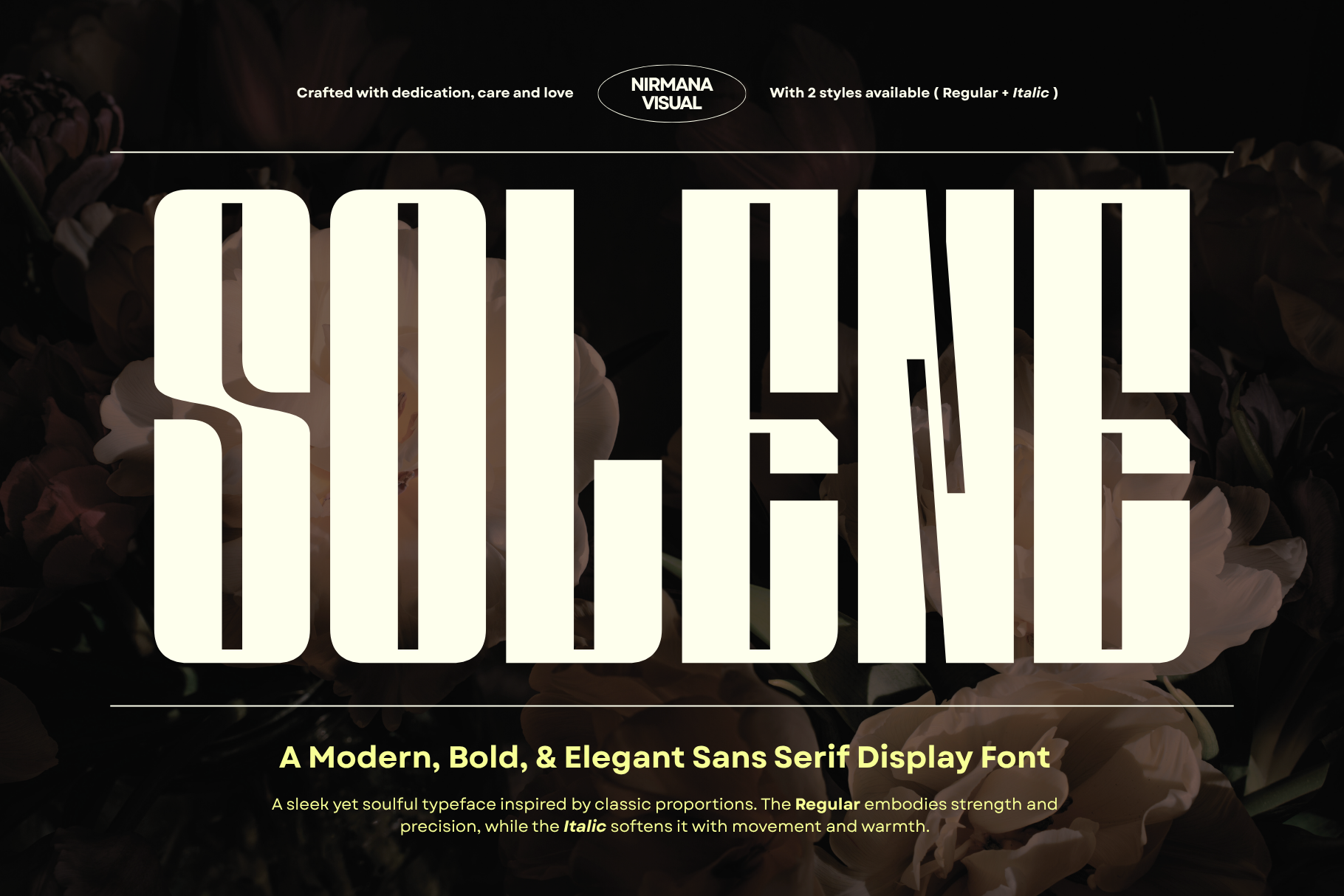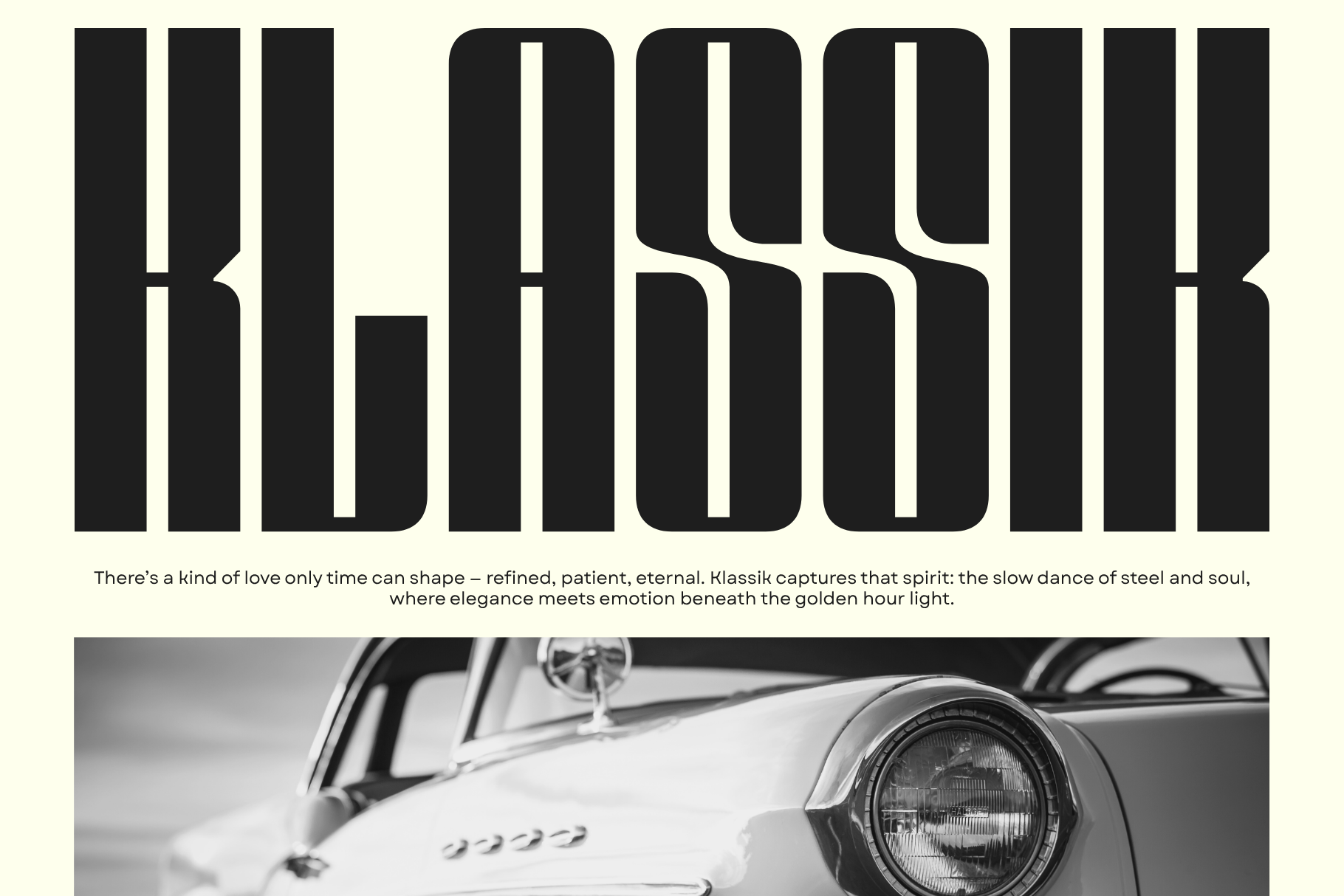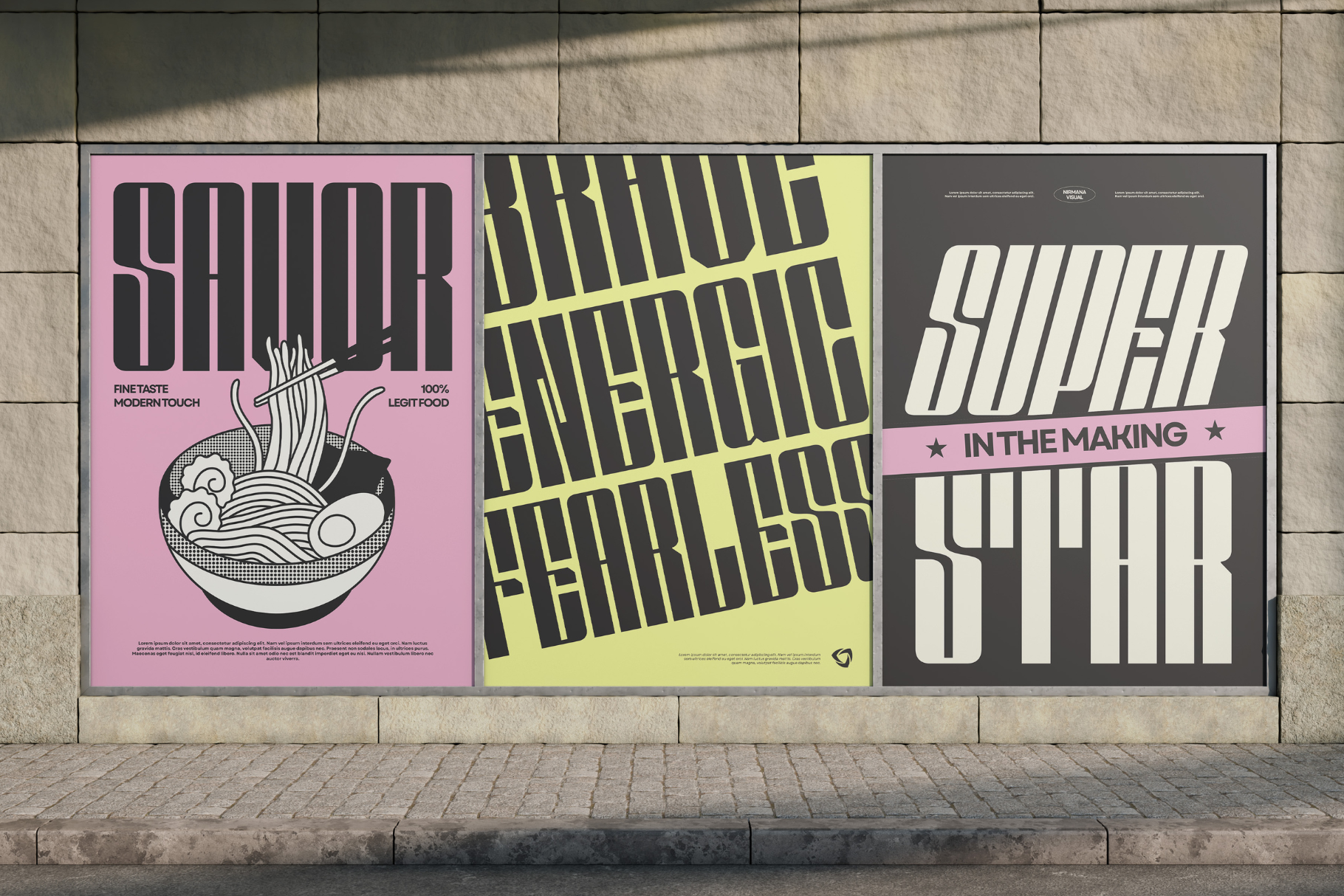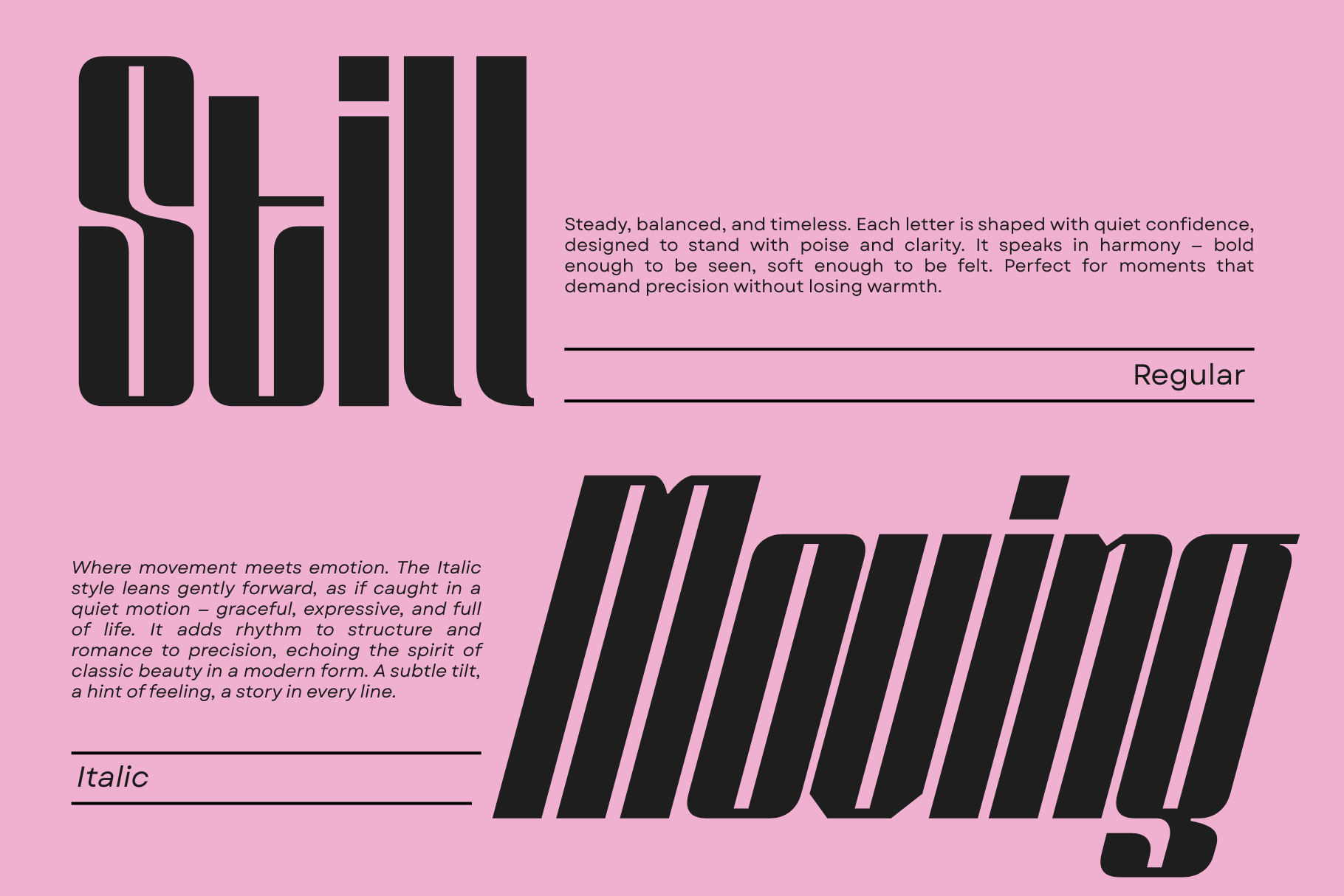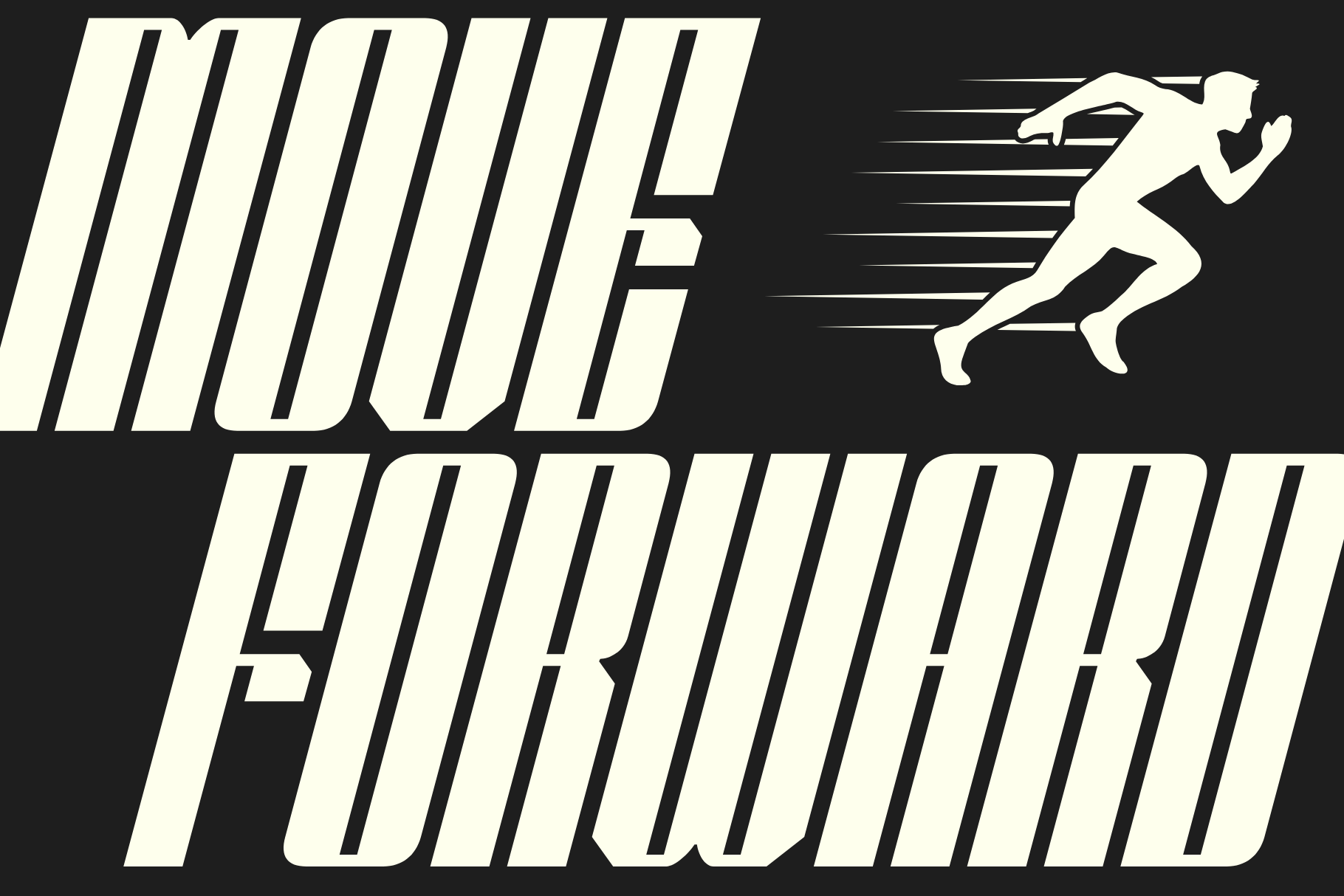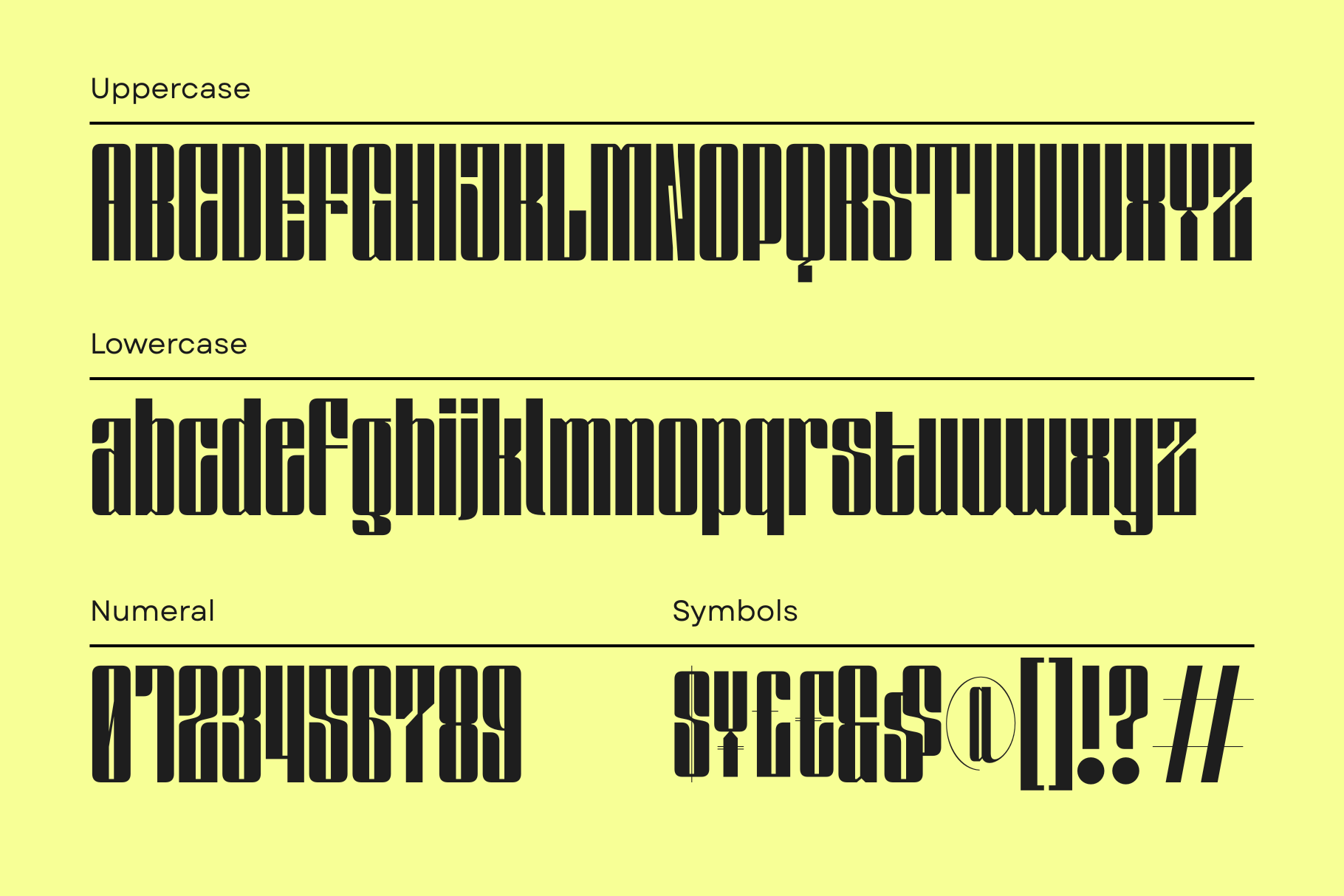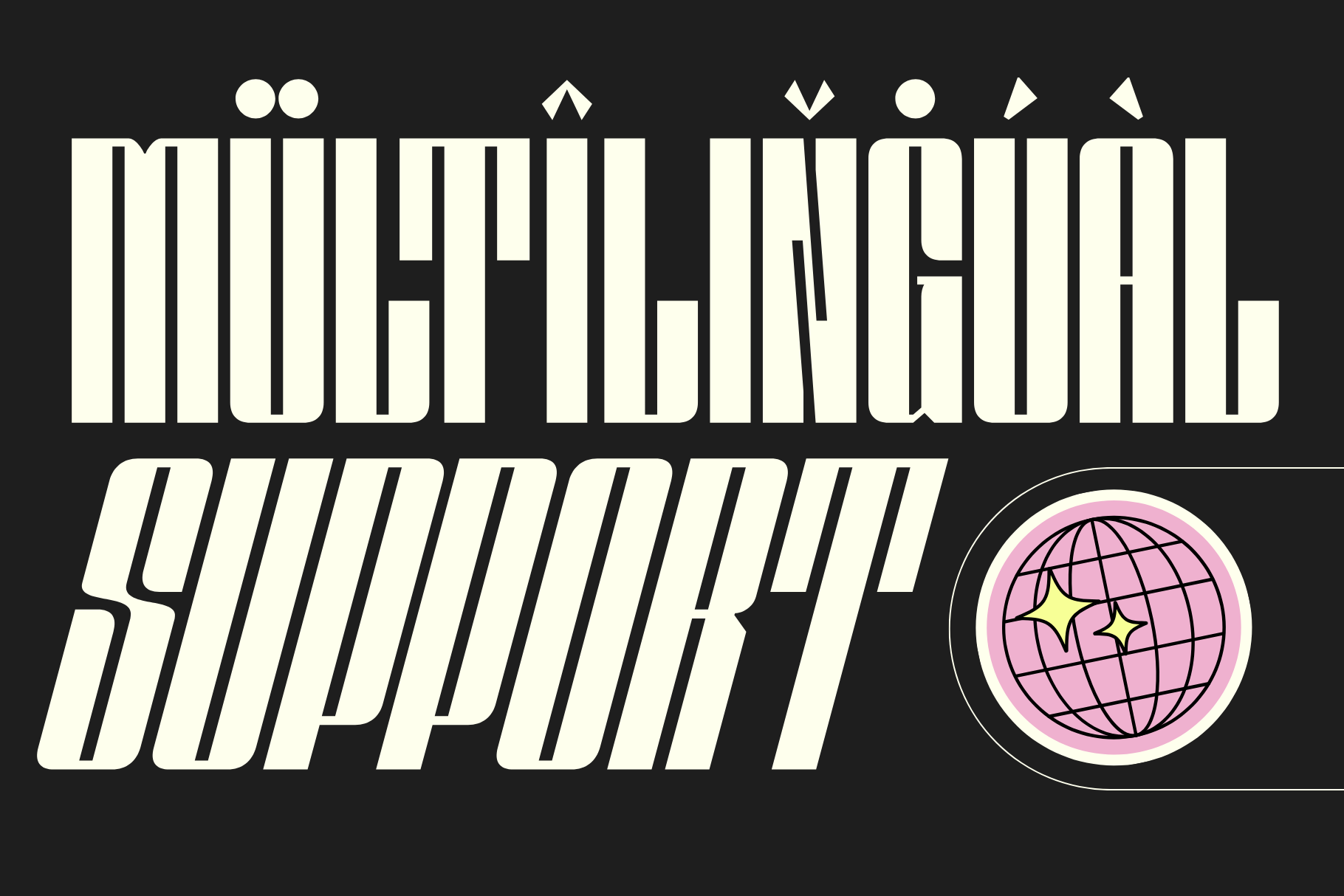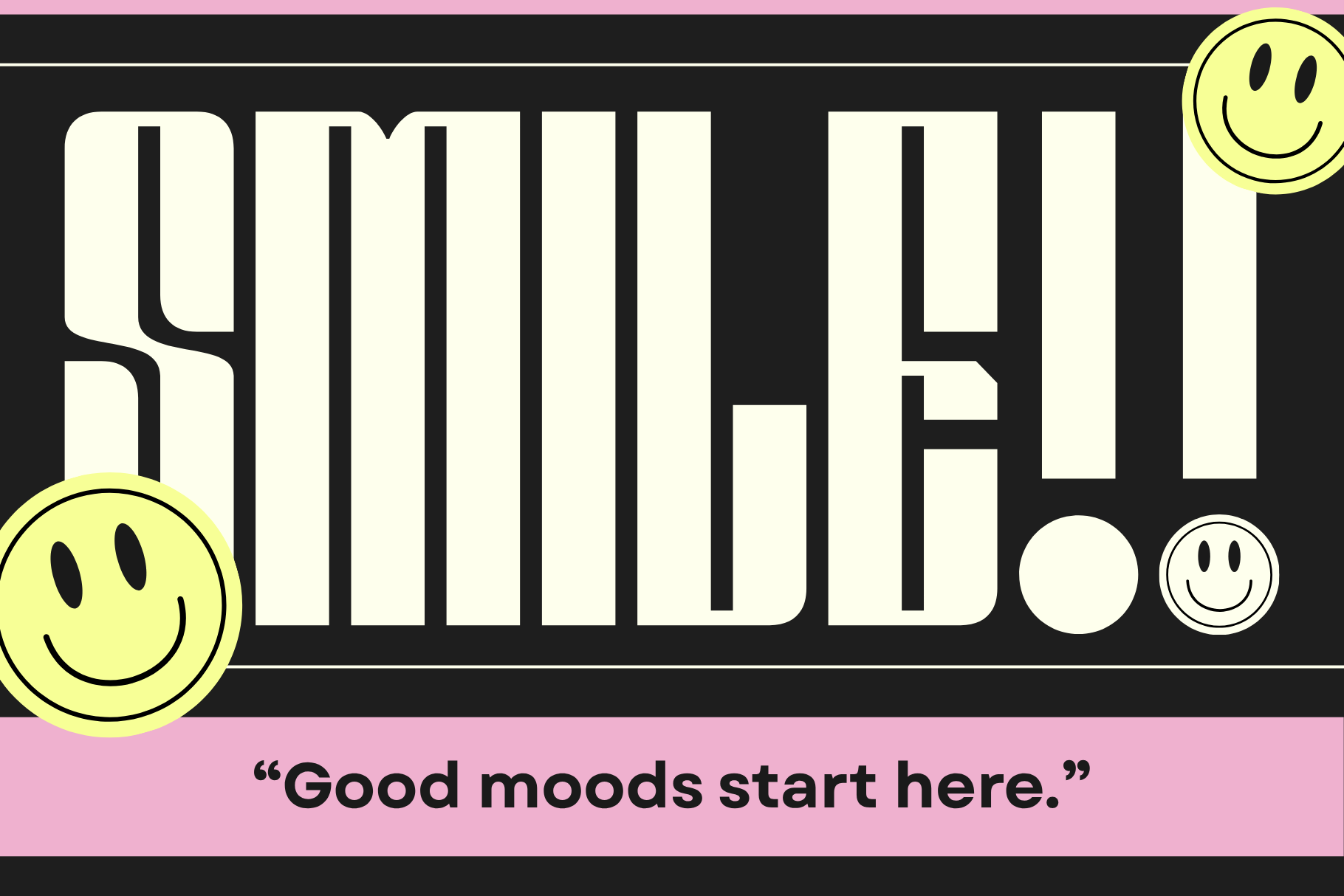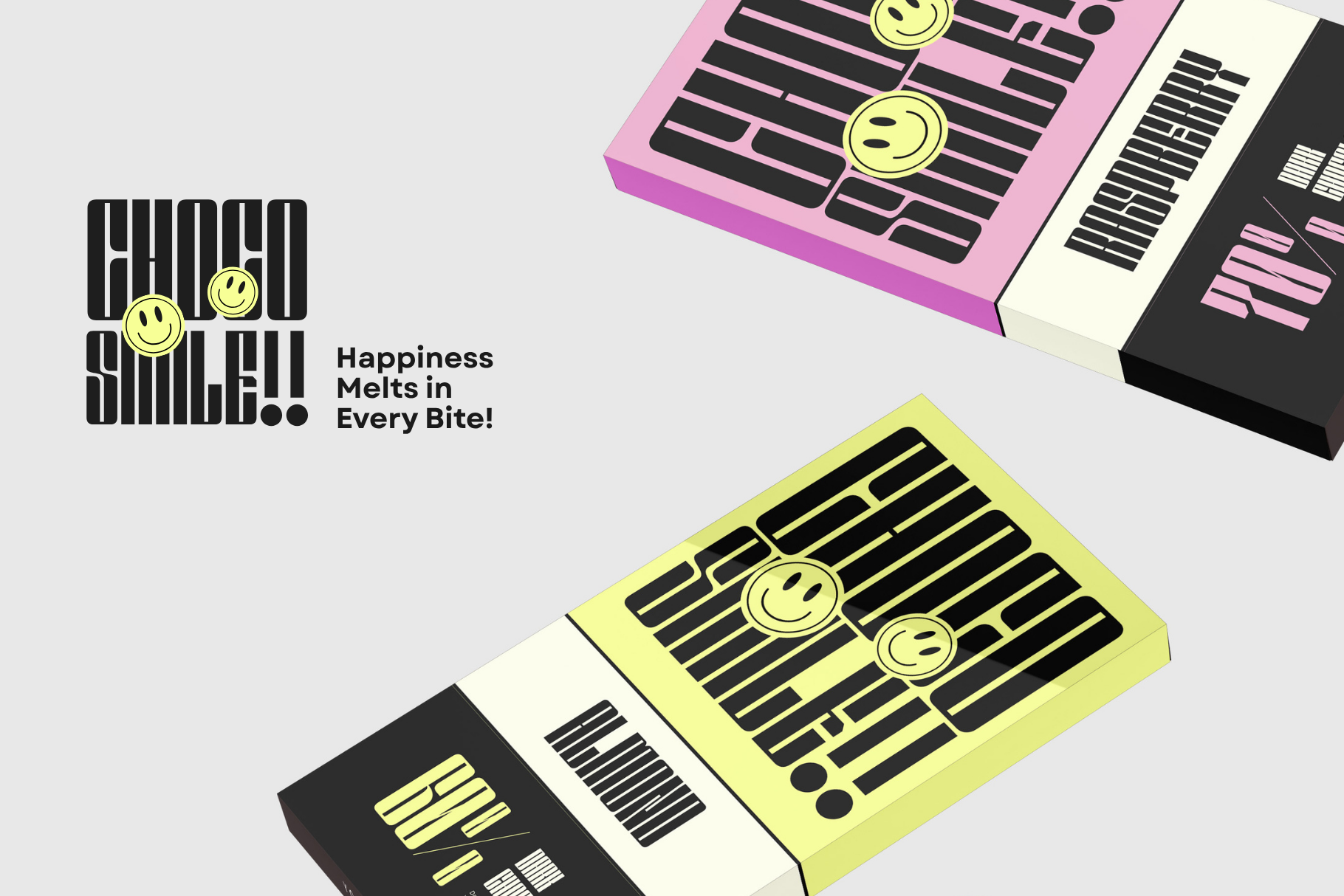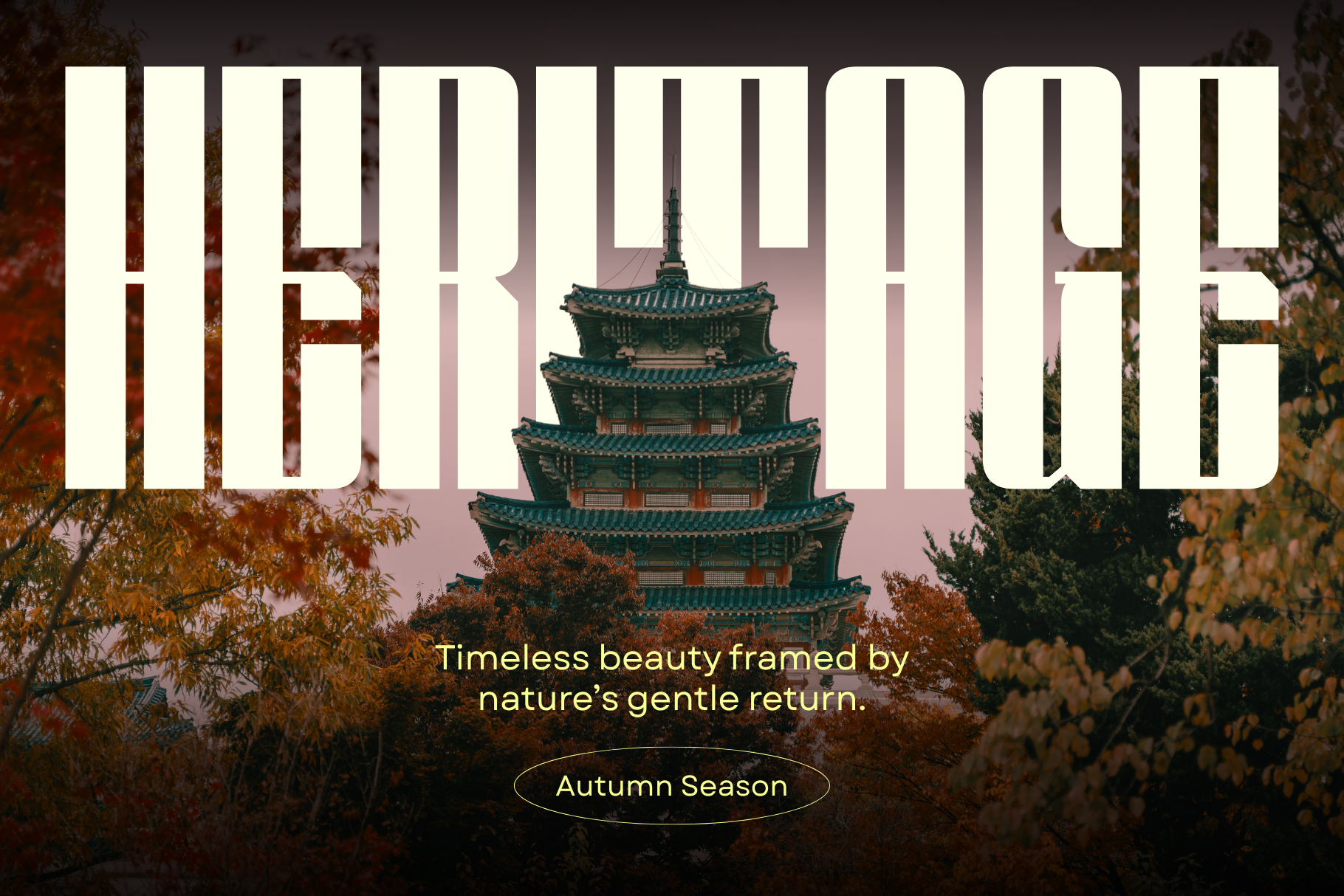
Solene Display – Logo Branding Font
Solene Display is a bold condensed sans serif font designed to make your brand stand out. Featuring both regular and italic styles, it combines strength and elegance, perfect for logos, packaging, and modern headlines. Its clean yet confident letterforms create a strong visual presence, ideal for premium products, editorial titles, or branding. Solene Display brings a touch of sophistication and versatility to every design it graces.
Features :
• Multilingual Support
• Regular & Italic
• Logo Modern Font
Solene Display offers beautiful typographic harmony for a diversity of design projects, including logos & branding, social media posts, advertisements & product designs.